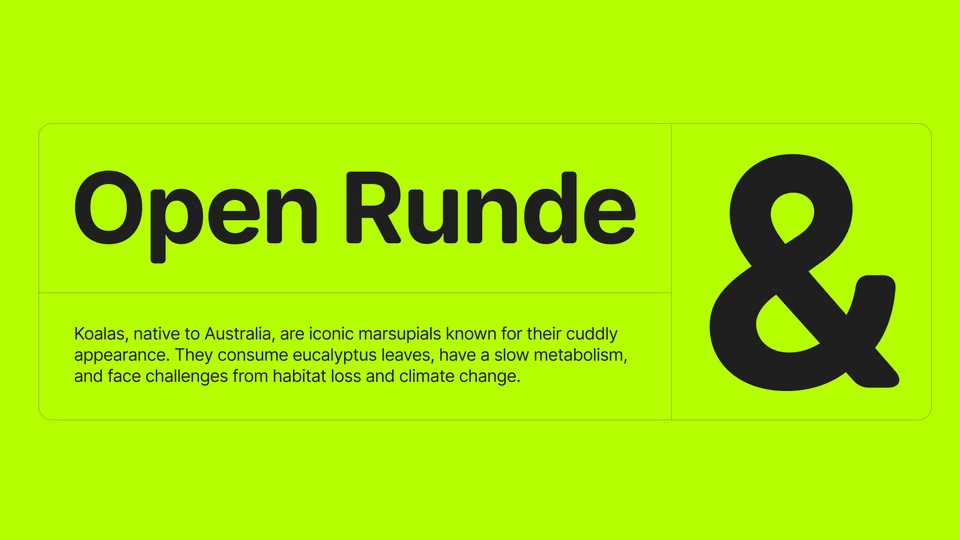
Download Open Runde font, a rounded variant of the typeface Inter by Rasmus Andersson. Open Runde was originally created to be used in the app Superchat.
Designer: Laurids Kern